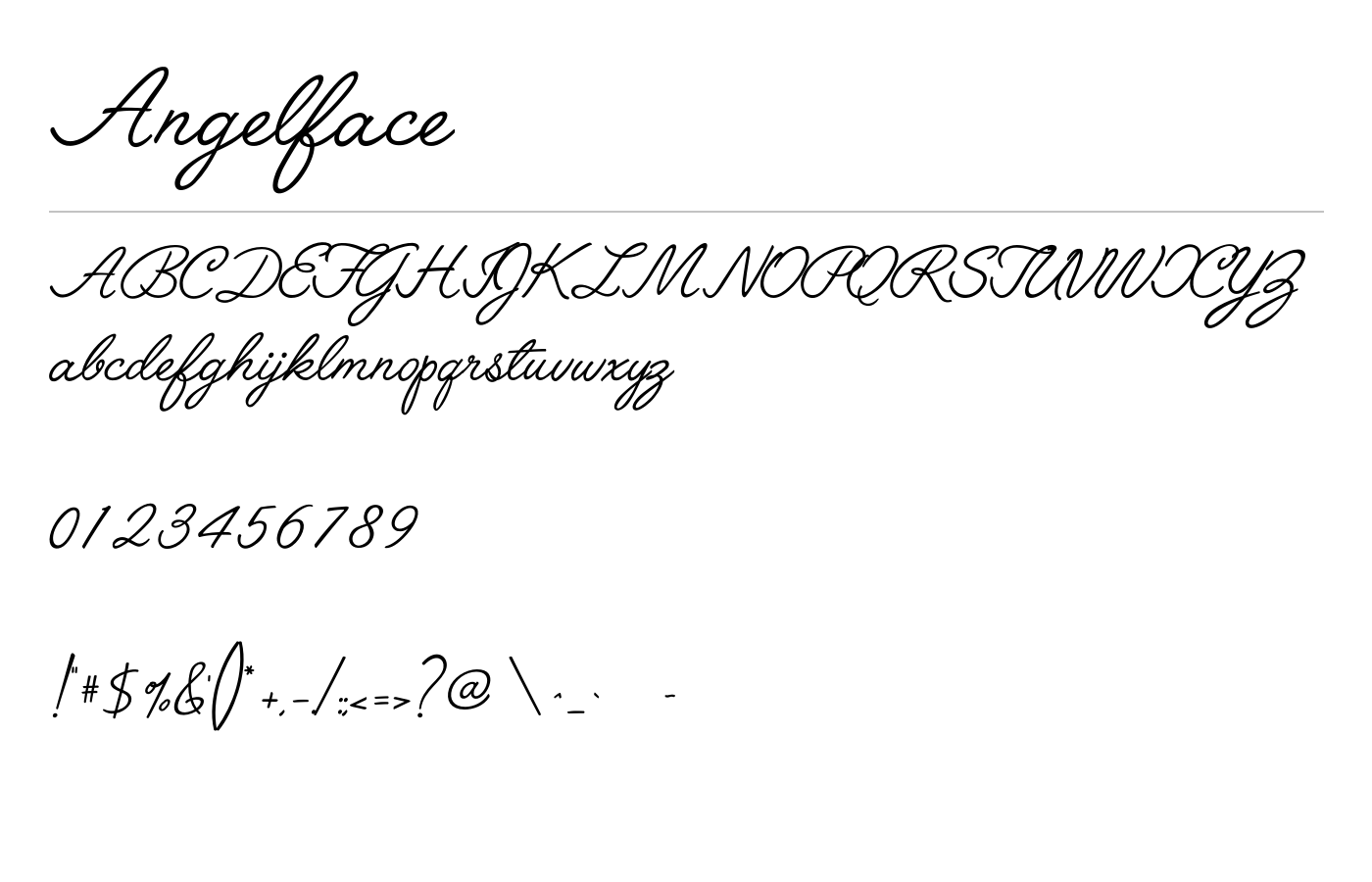
Angelface is an elegant script font featuring delicate, flowing strokes with a consistent light weight and medium x-height, giving it a graceful and refined appearance. Its smooth, connected letterforms and slightly italicized style convey a sense of sophistication and charm, making it ideal for invitations, fashion branding, and feminine editorial designs where a gentle, stylish touch is desired. This font works beautifully in contexts that call for elegance and readability in a handwritten style.
Angelface Font
About Angelface Font